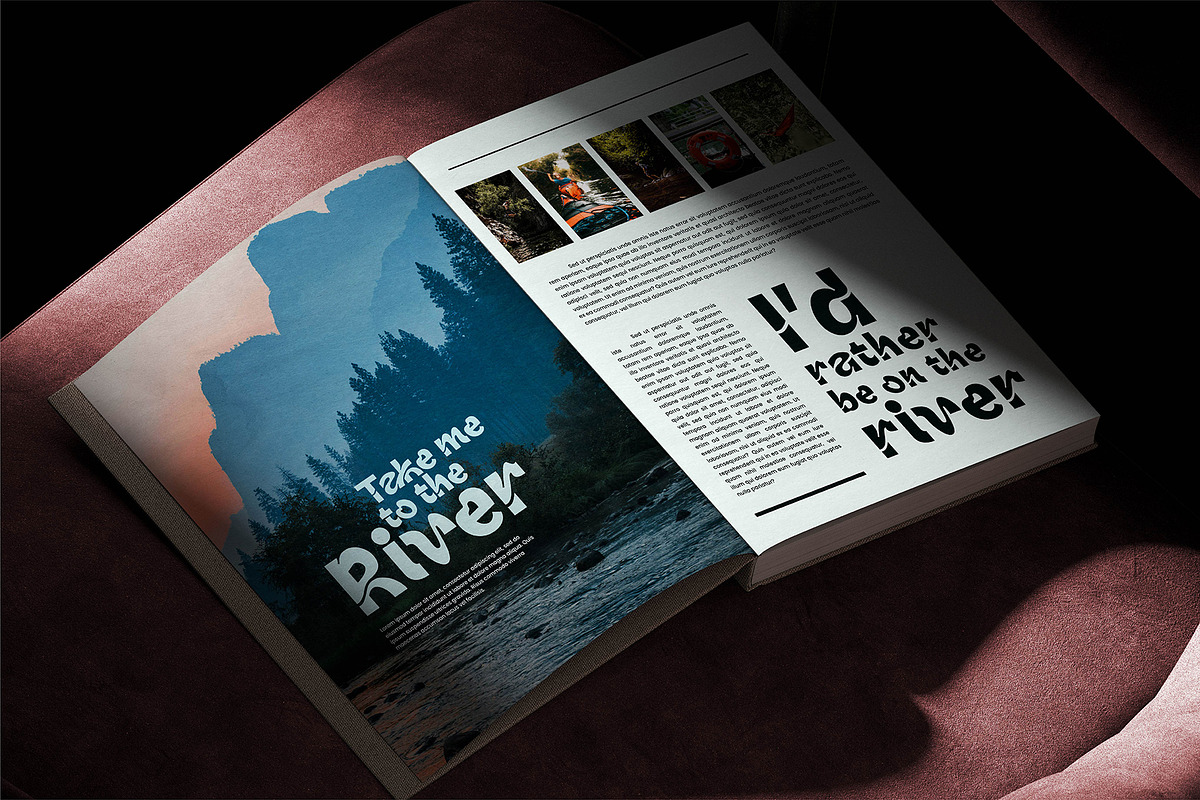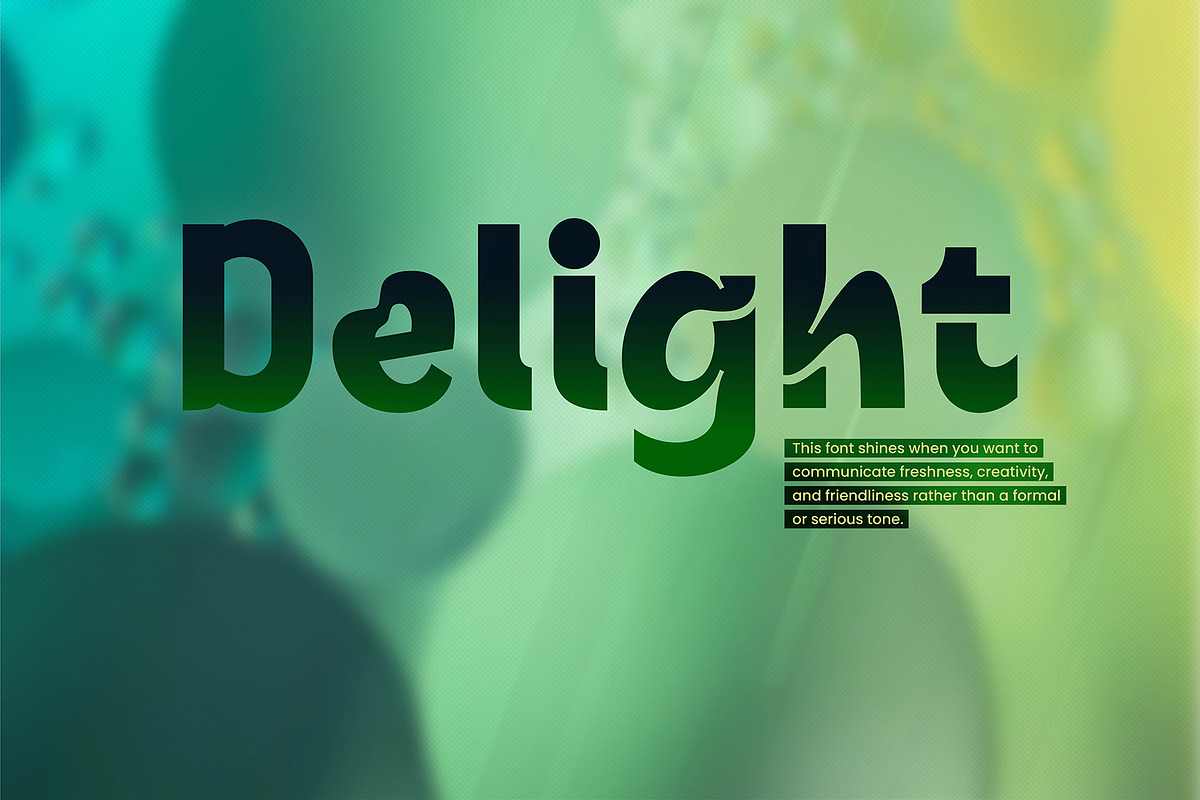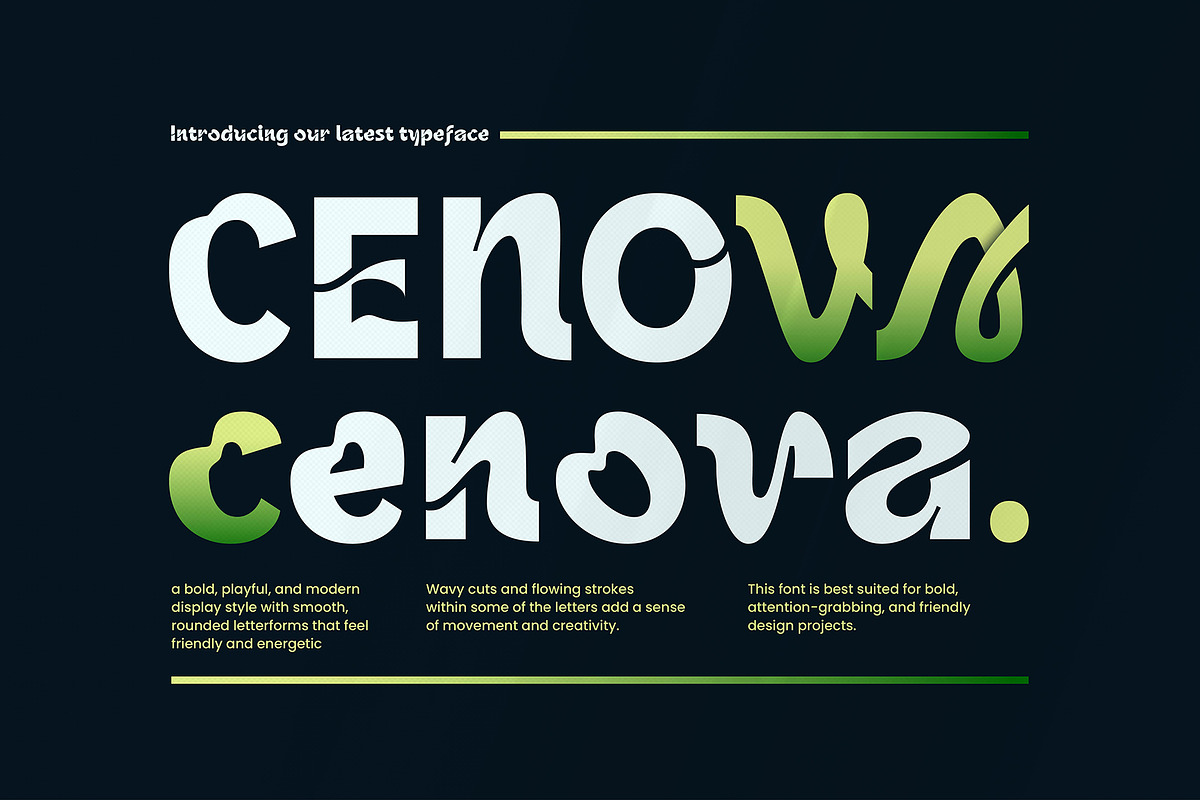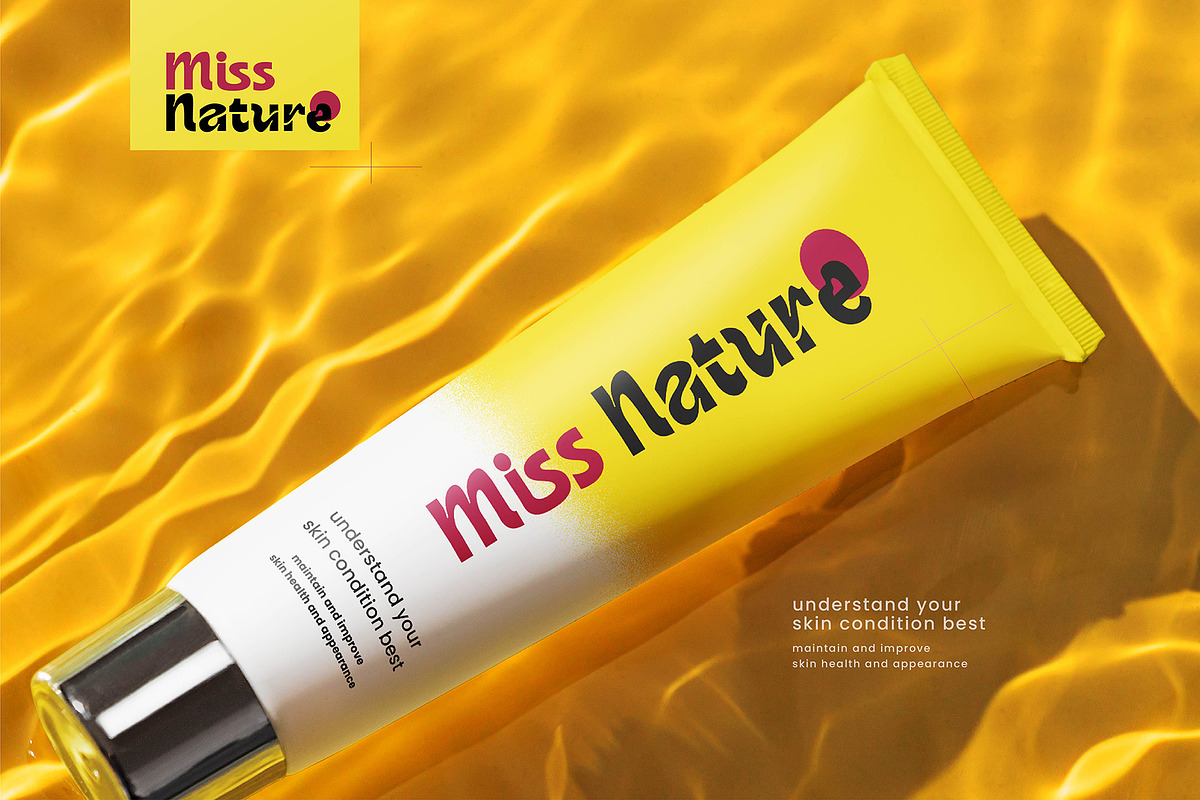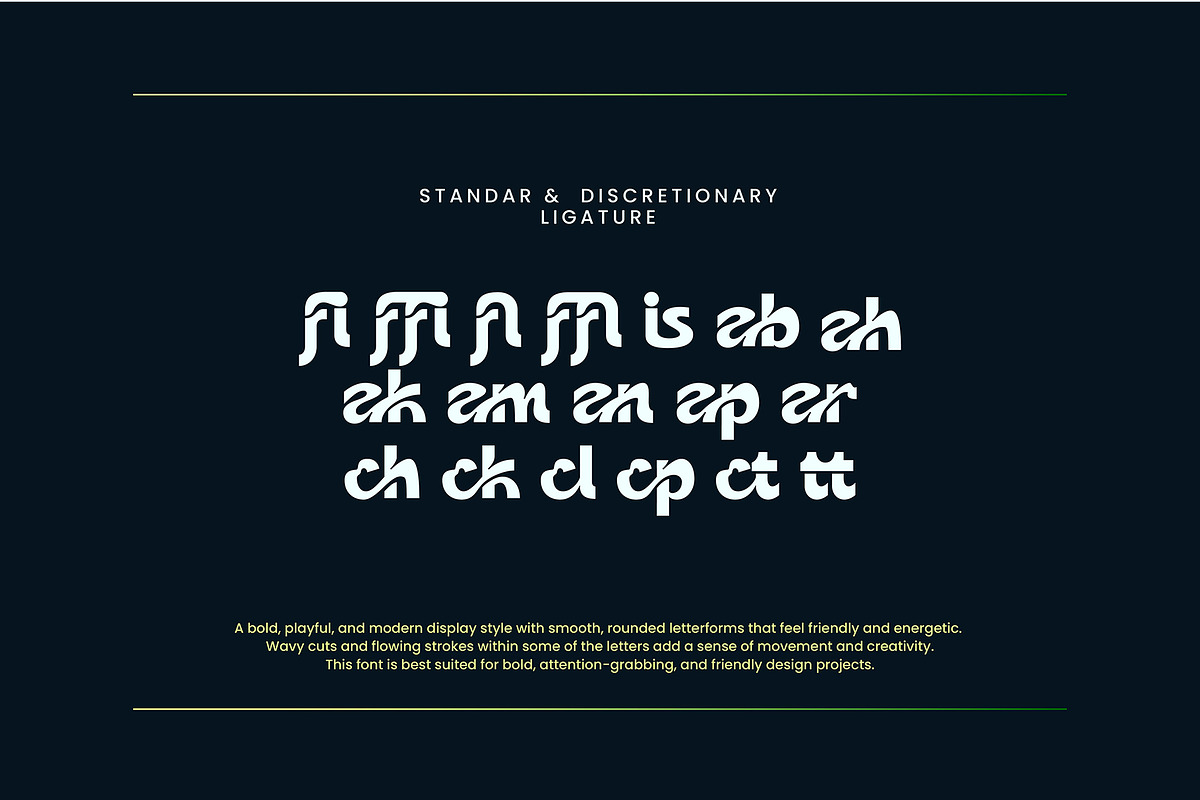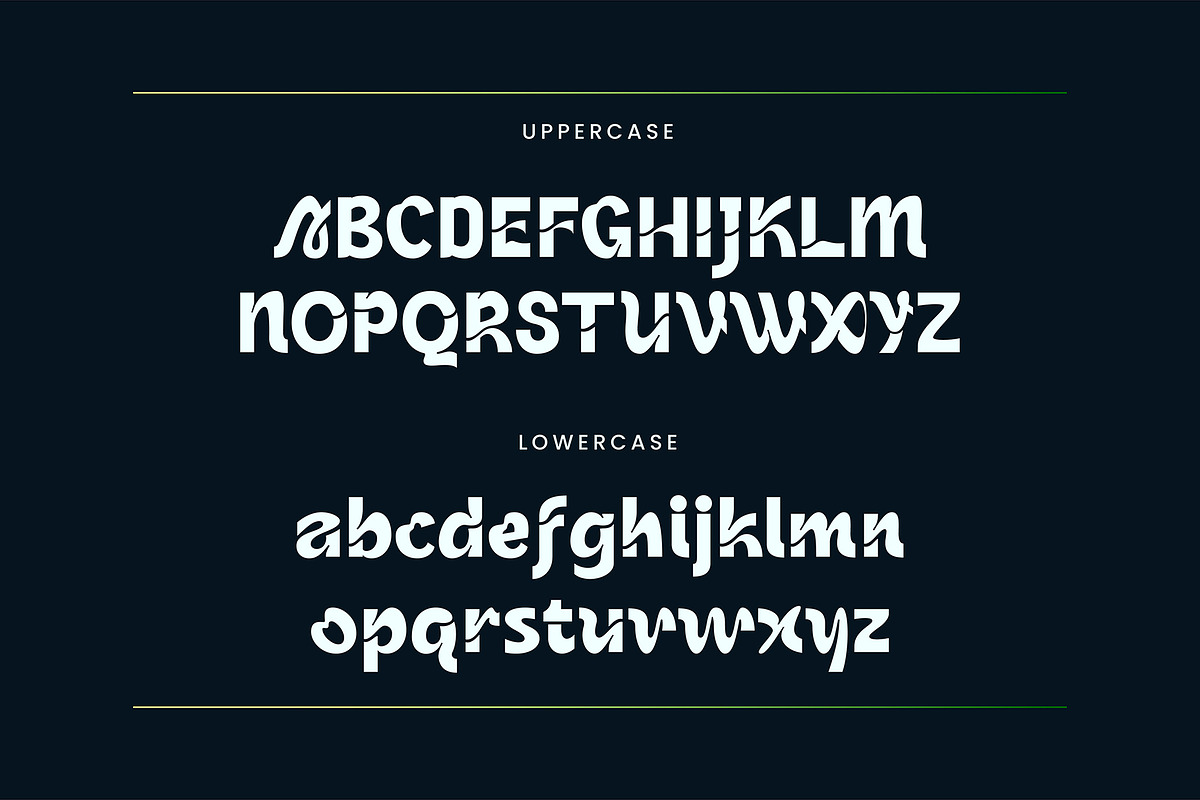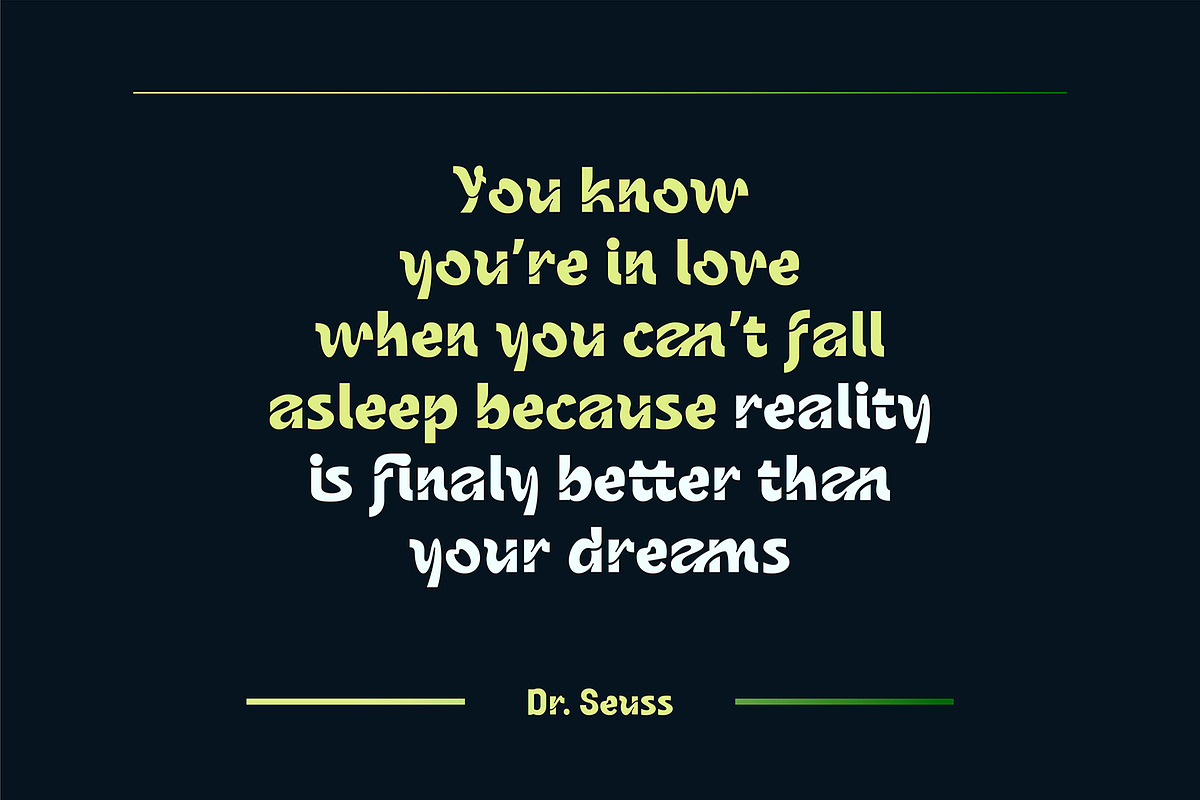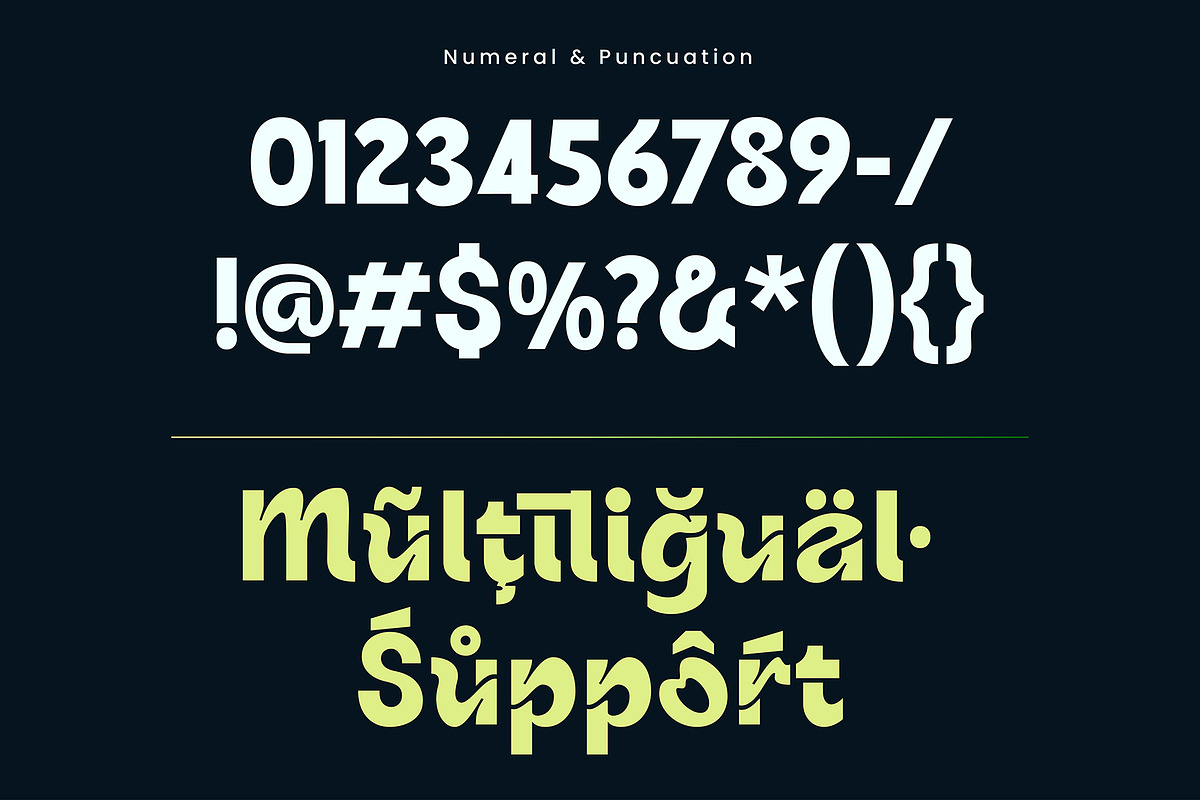
Cenova Bold Modern Display Font
Cenova Bold Modern Sans Serif Font
Cenova font is a modern sans-serif font with a bold, unique, elegant, and geometric style. It is a modern display font perfect for branding projects, logos, social media posts, product packaging, labels, etc.